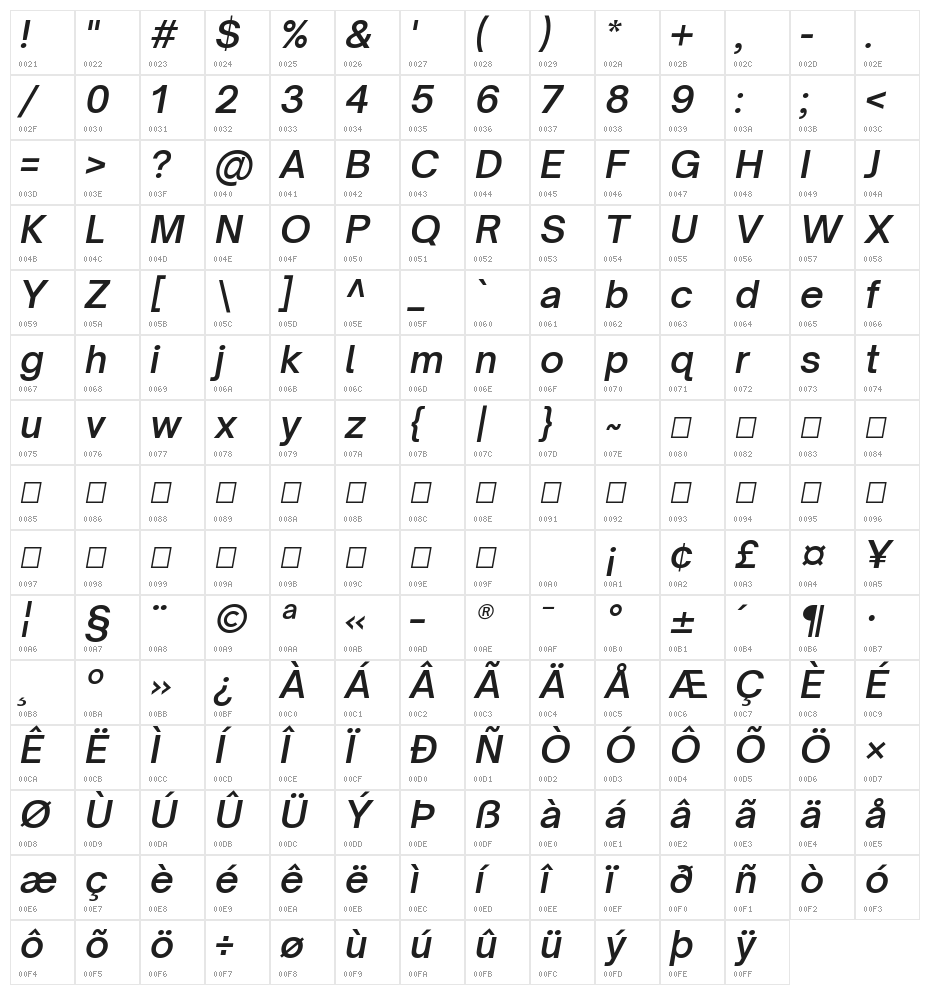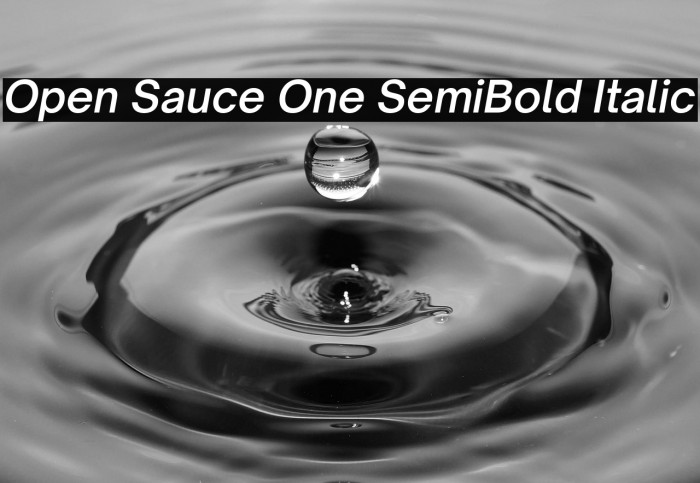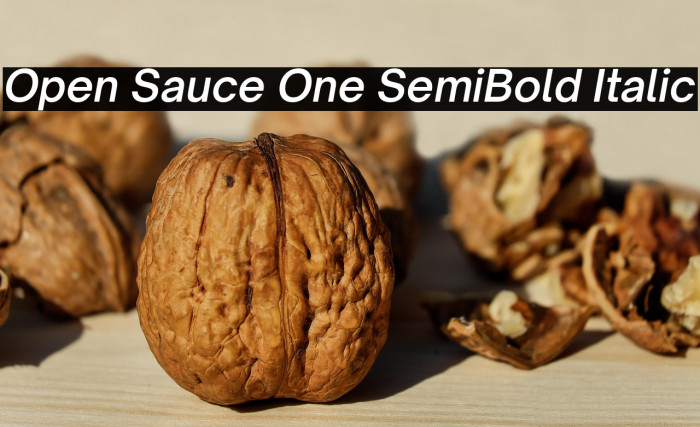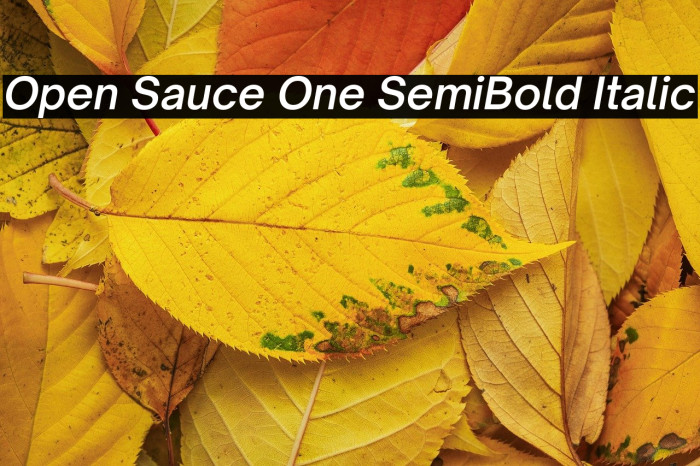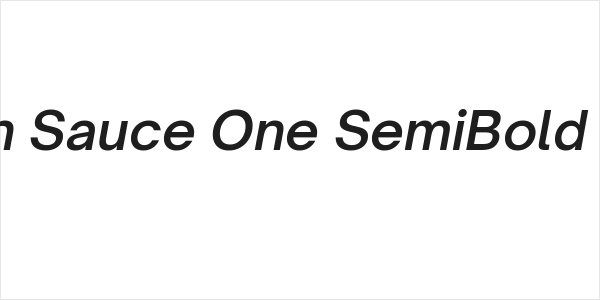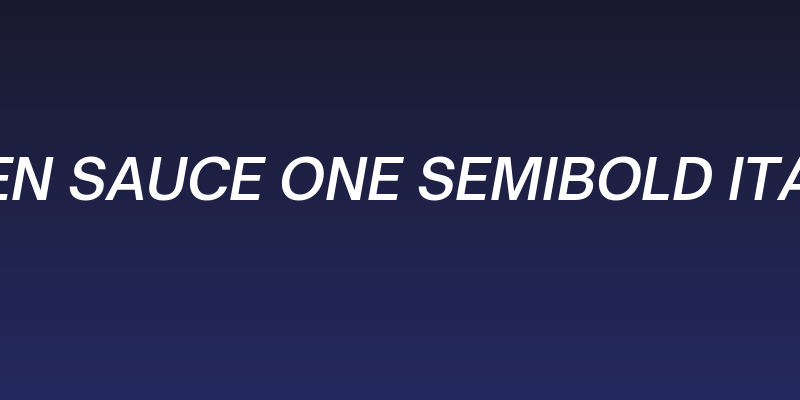
Open Sauce One SemiBold Italic Font
Open Sauce One SemiBold Italic Description
This font features a sleek and modern sans-serif design with a semi-bold weight, providing a strong yet elegant appearance. The italic style adds a dynamic and forward-leaning character, making it suitable for contemporary design needs. The characters are well-proportioned with a consistent stroke width, ensuring readability across various sizes. The numerals and special characters maintain the same stylistic approach, offering a cohesive look throughout. This font is versatile, making it ideal for both digital and print media.
| Proposed Projects | Ideal for branding, advertising, web design, and editorial layouts. |